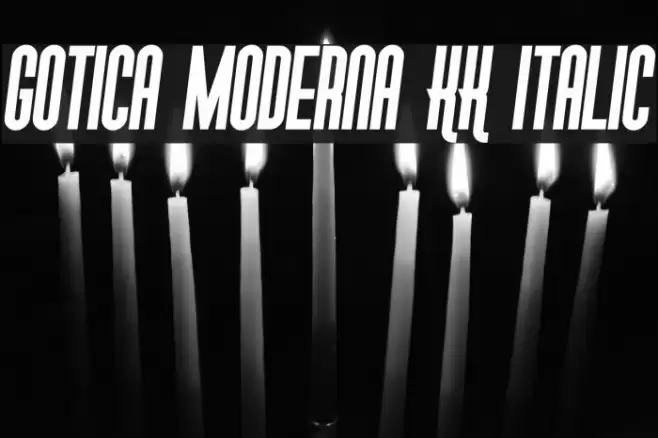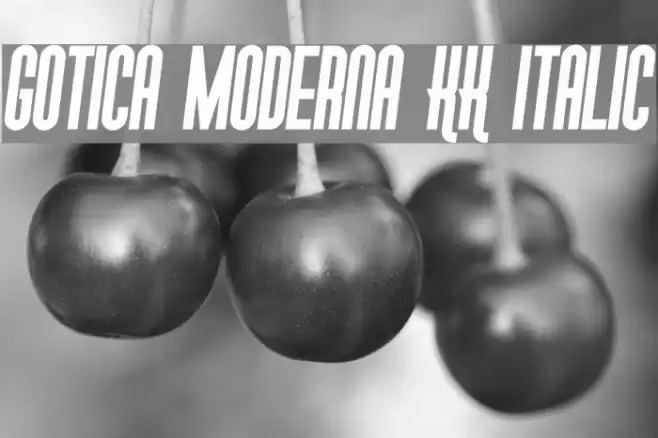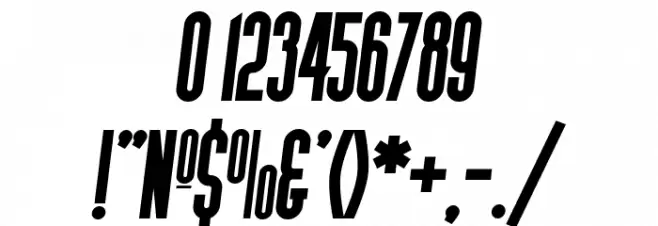
Gotica Moderna KK Italic Font
Gotica Moderna KK Italic Description
This font features a bold and dynamic style with a modern twist on traditional Gothic elements. The characters are elongated and slightly condensed, giving them a sleek and powerful appearance. The italic slant adds a sense of movement and urgency, making it ideal for attention-grabbing headlines. The uppercase letters are particularly striking, with sharp angles and clean lines, while the lowercase letters maintain a consistent style. The numerals and special characters are designed to match the overall aesthetic, ensuring a cohesive look across all text elements.
A bold, modern Gothic-inspired italic font with elongated, condensed characters from Uncategorized fonts.
- Proposed Projects: Ideal for branding, posters, and editorial design where a strong, modern impact is desired.
- Character Spacing: Tight